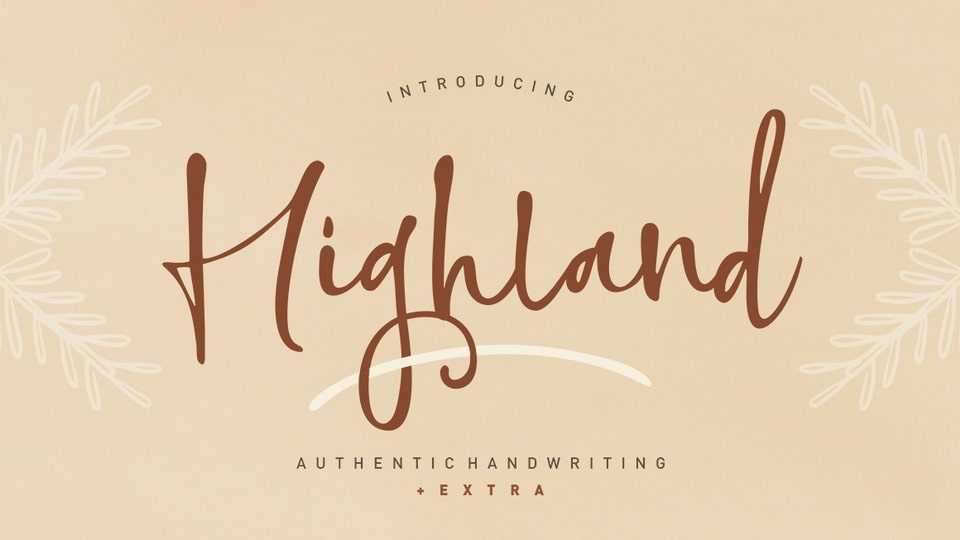
Download Highland font, a gorgeously modern and unique script that comes with a wealth of alternates and ligatures. It will provide you with limitless design options!